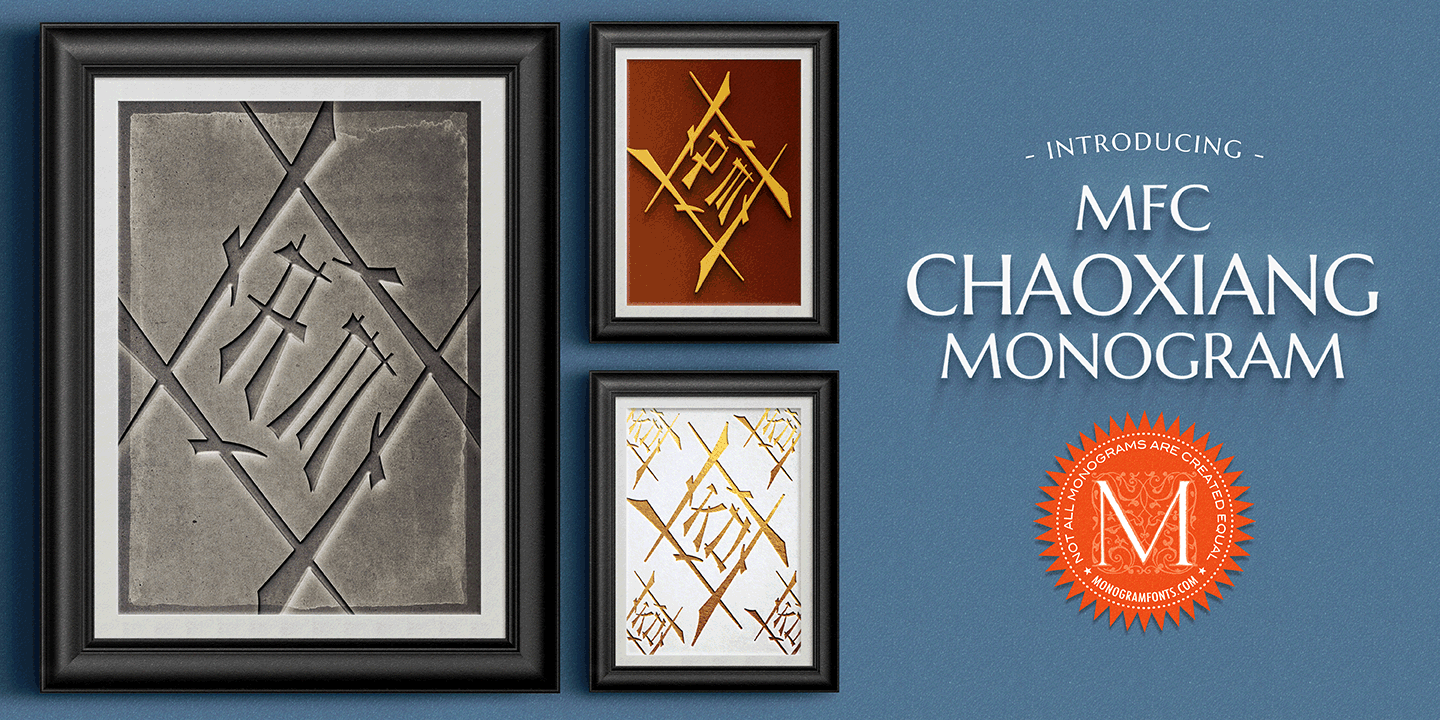
Add a touch of classic elegance and intricate style to your work with MFC Chaoxiang Monogram Font Free Download. This ornamental monogram typeface is designed for creating sophisticated initials and decorative letterforms, making it ideal for wedding stationery, luxury branding, personalized gifts, upscale packaging, and vintage-themed designs. MFC Chaoxiang Monogram Font Free Download brings a sense of tradition, refinement, and artistic flair to any project.
Featuring ornate detailing and carefully constructed forms, MFC Chaoxiang Monogram Font allows for the creation of beautiful, custom monograms that stand out with character and elegance. It’s especially well-suited for high-end applications where style and detail matter most.